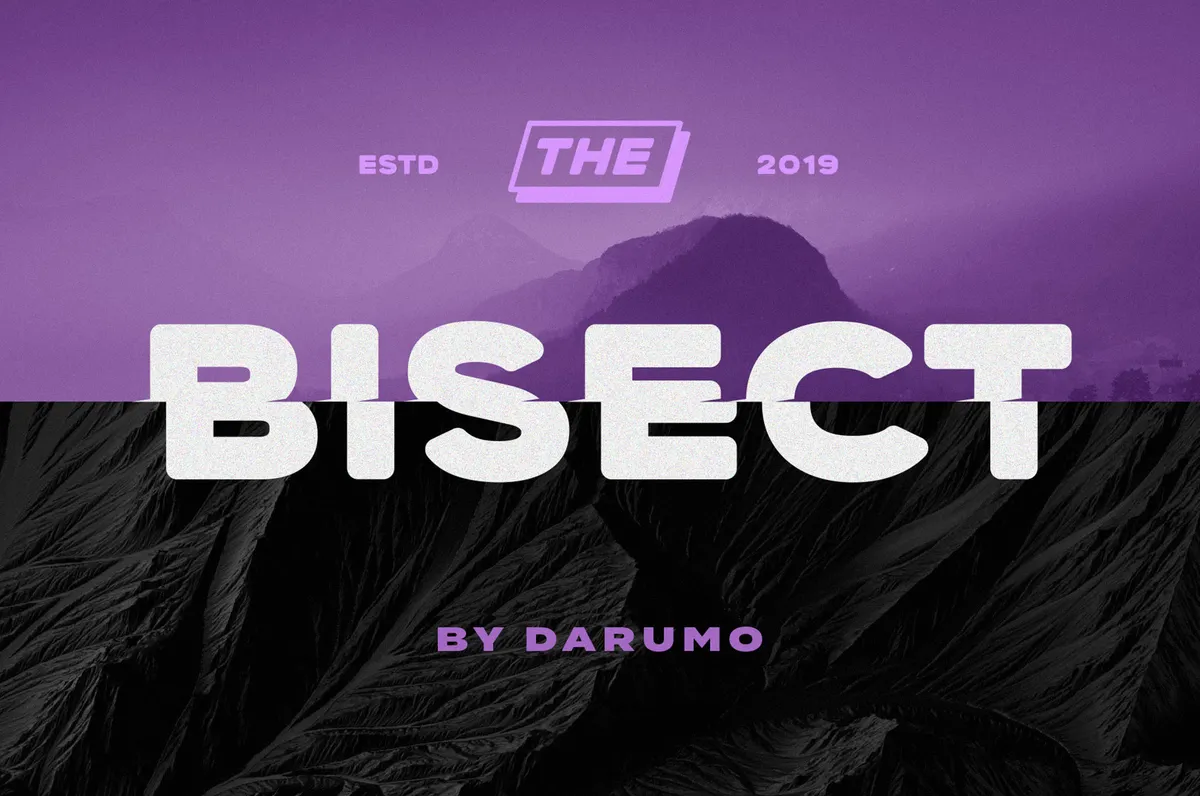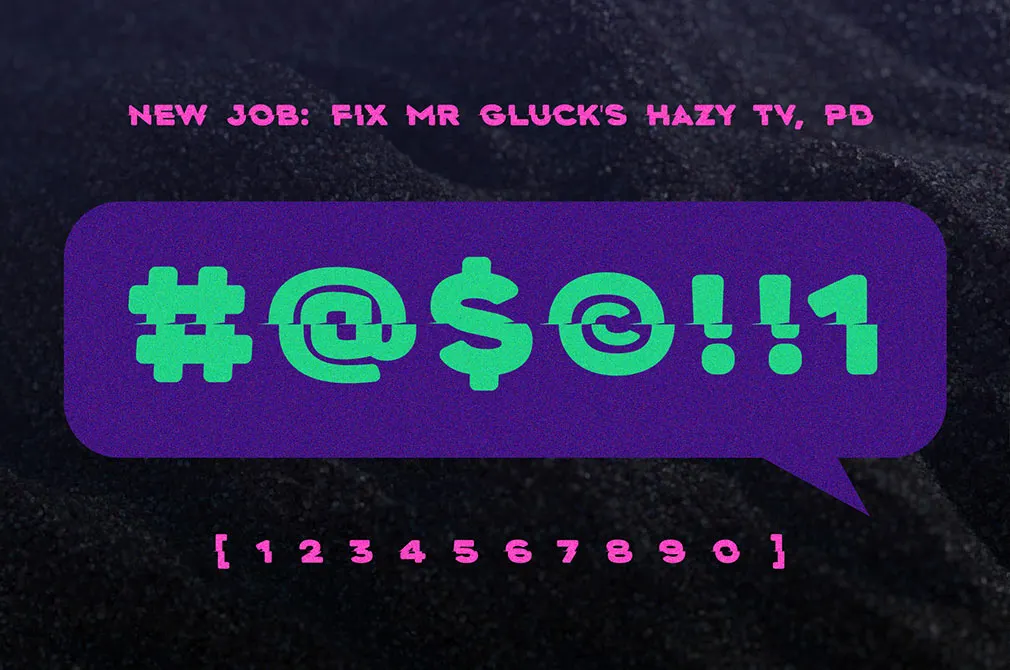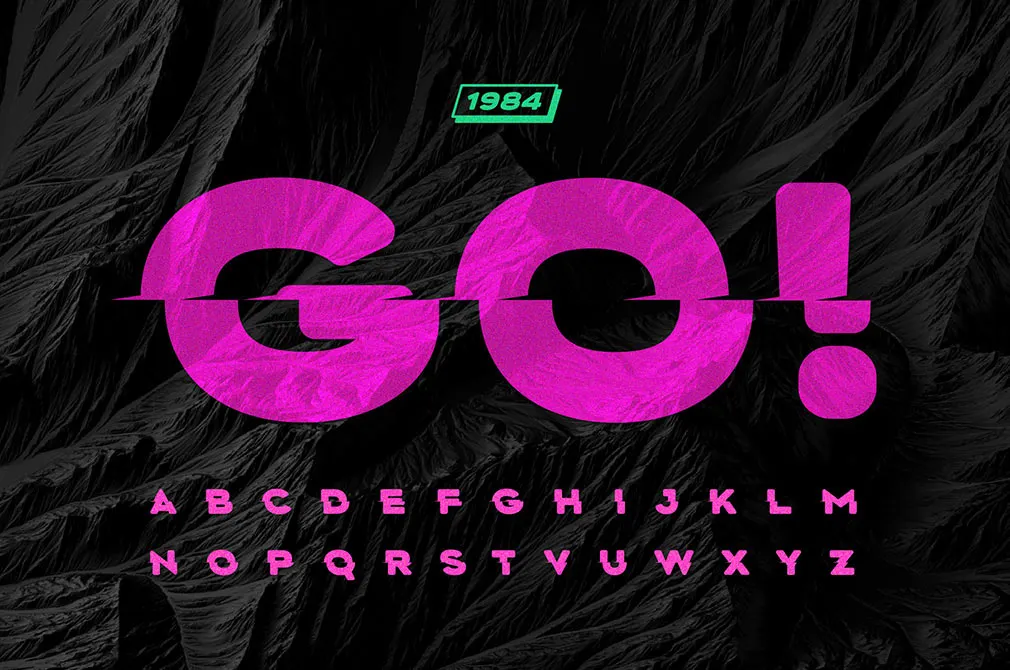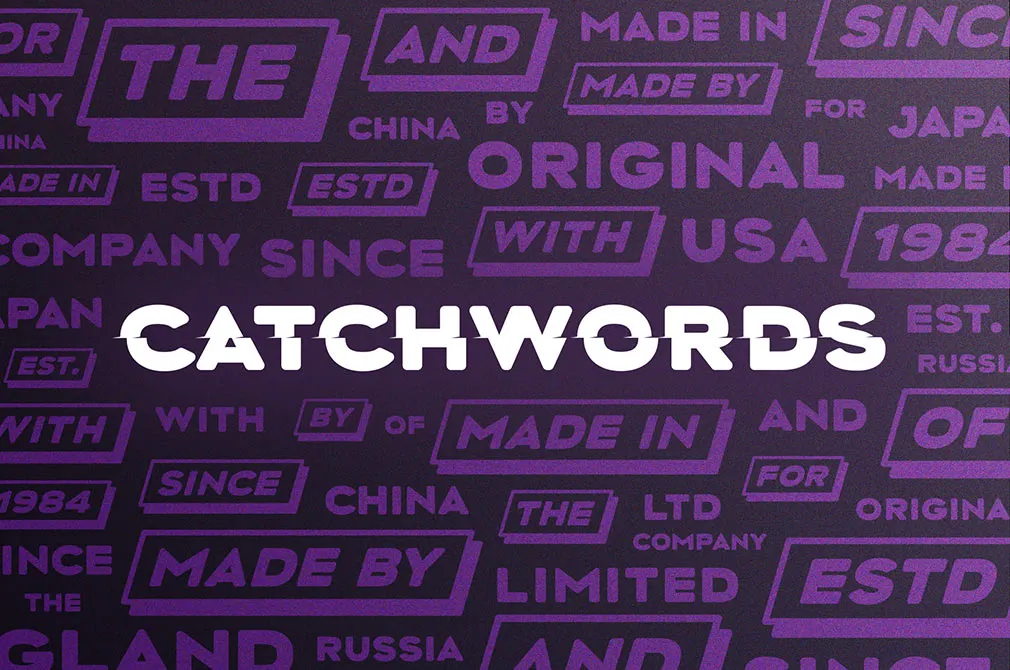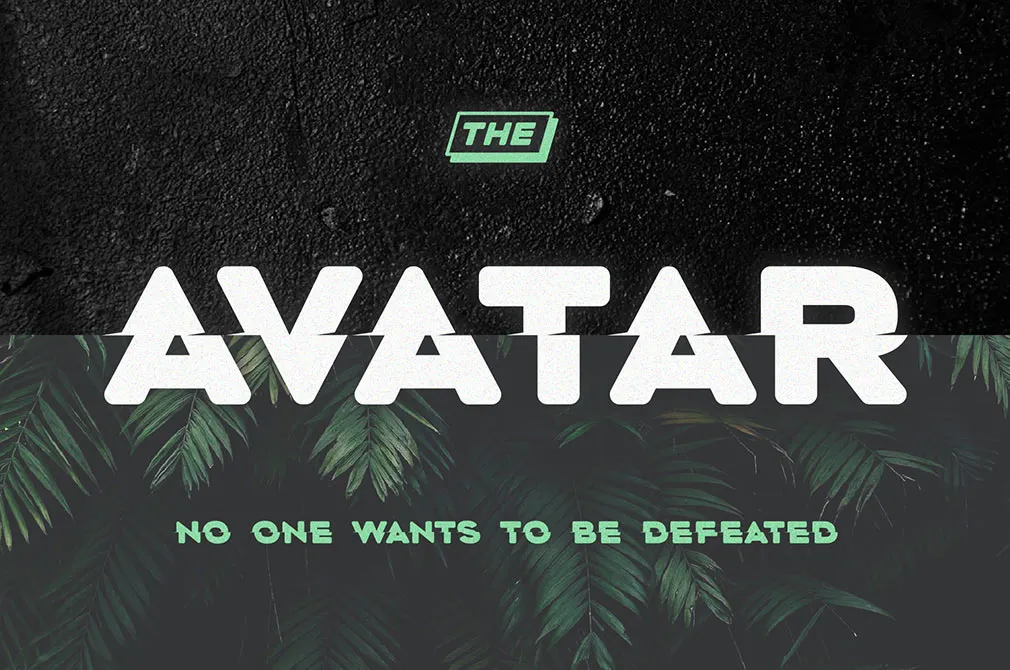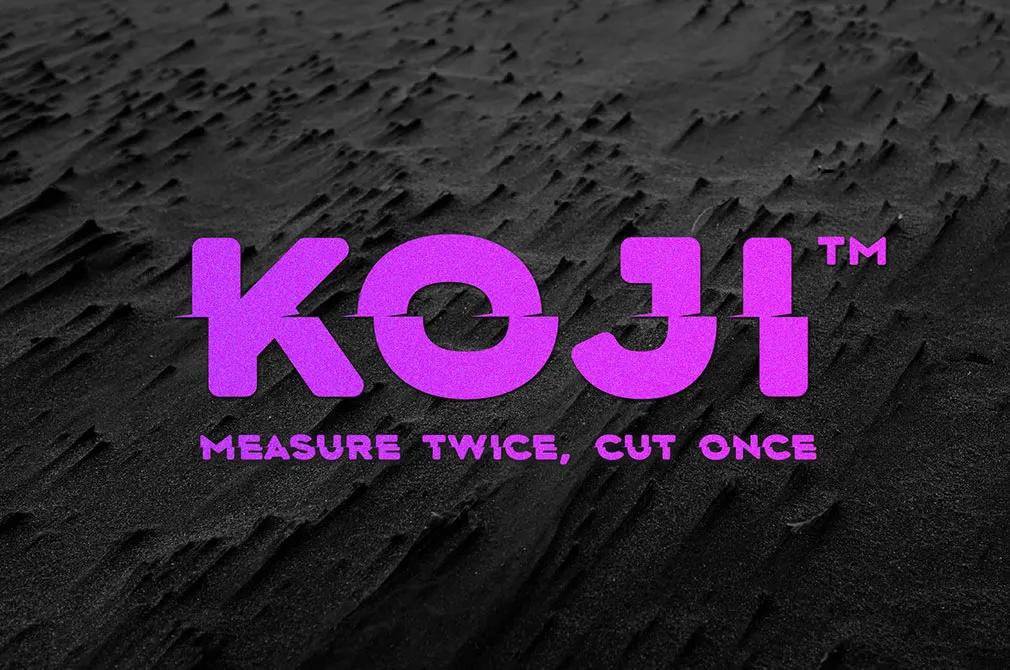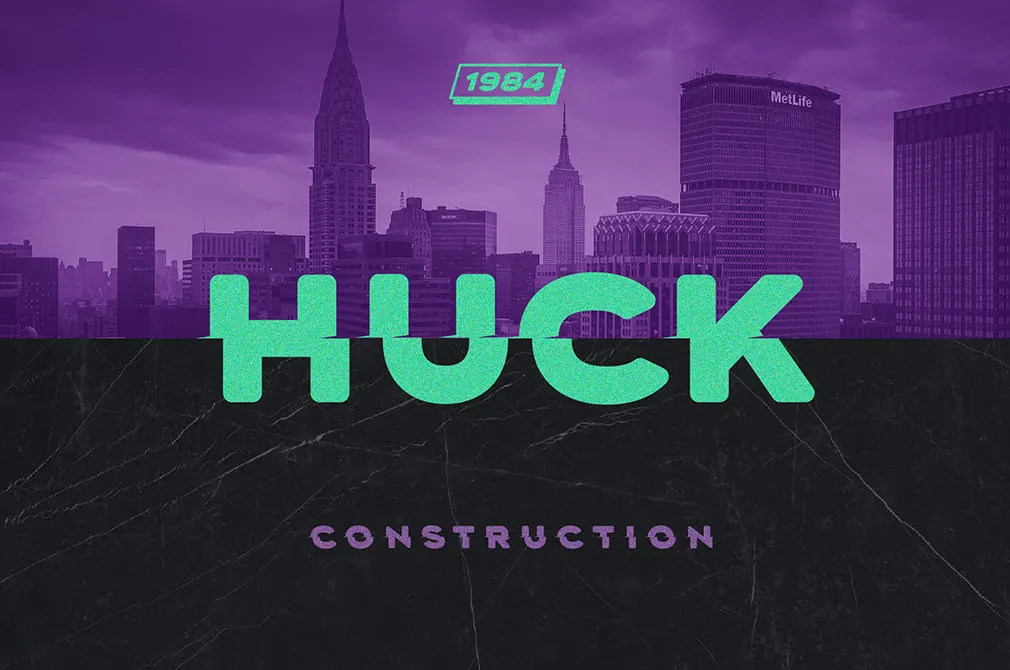
Bisect Display Font
Introducing a horizontally shifted display font! It's like yin and yang from the world of typography, where one part complements the other. Sharp edges and powerful spirit leave you disarmed.
Bisect is a modern-looking typeface, looking both monolithic and loose. Perfect as a headline font (especially for the big headers), it can also be used for text blocks. You'll find a group of ready-made catchwords to let your project have a professional approach. This powerful typeface will be an excellent choice if you want your ads, headlines, banners, or printouts to exude dynamism, energy, and audacity.